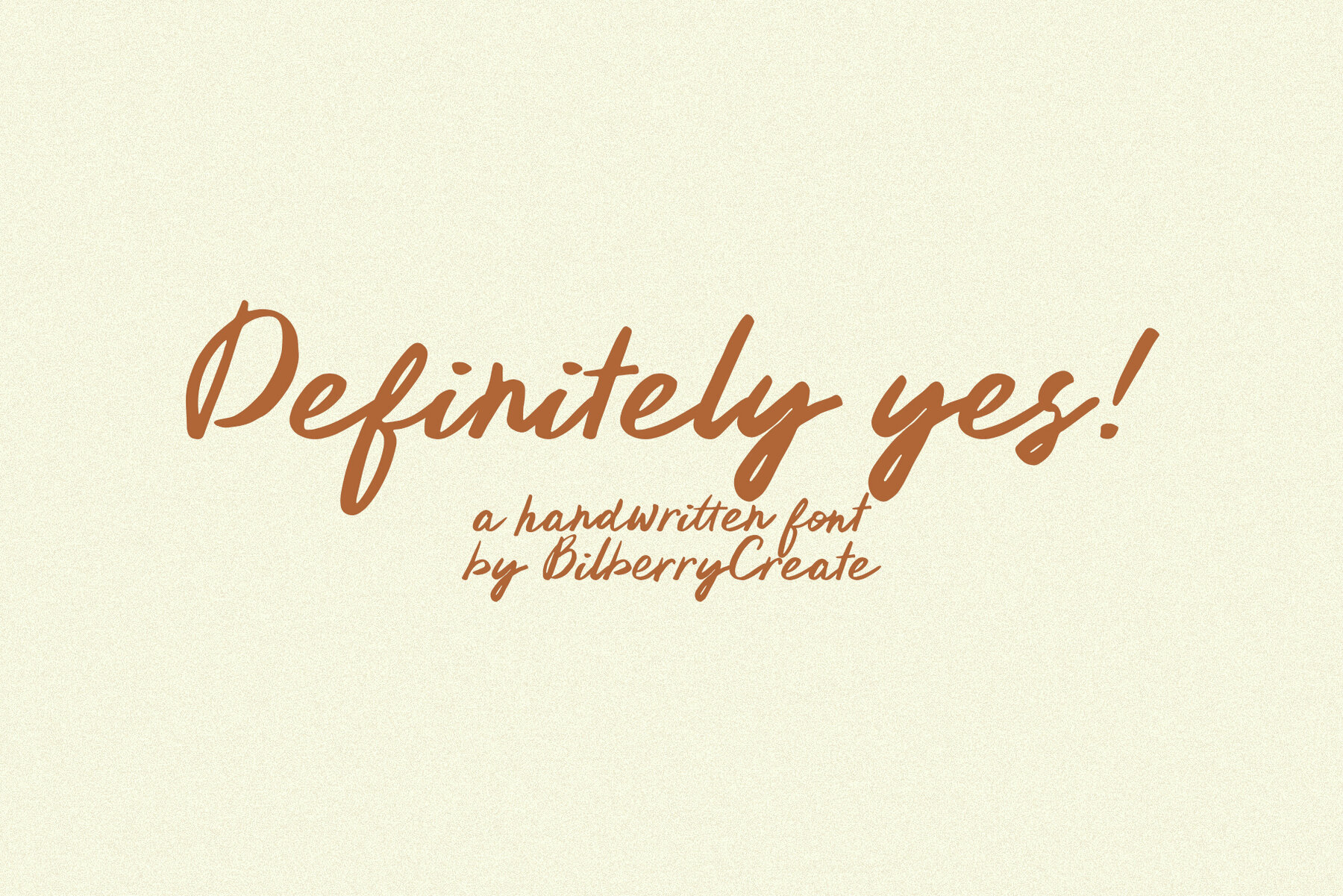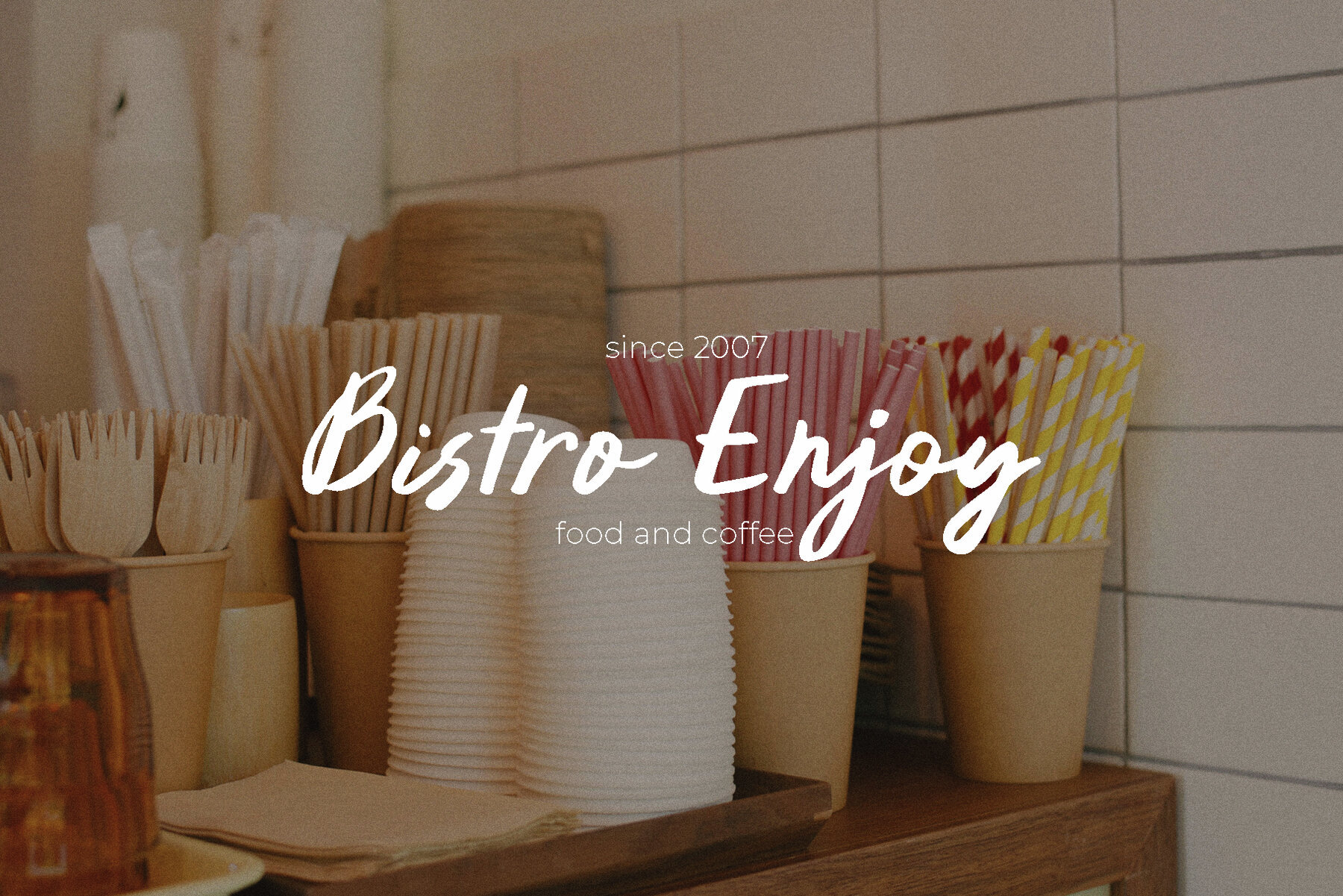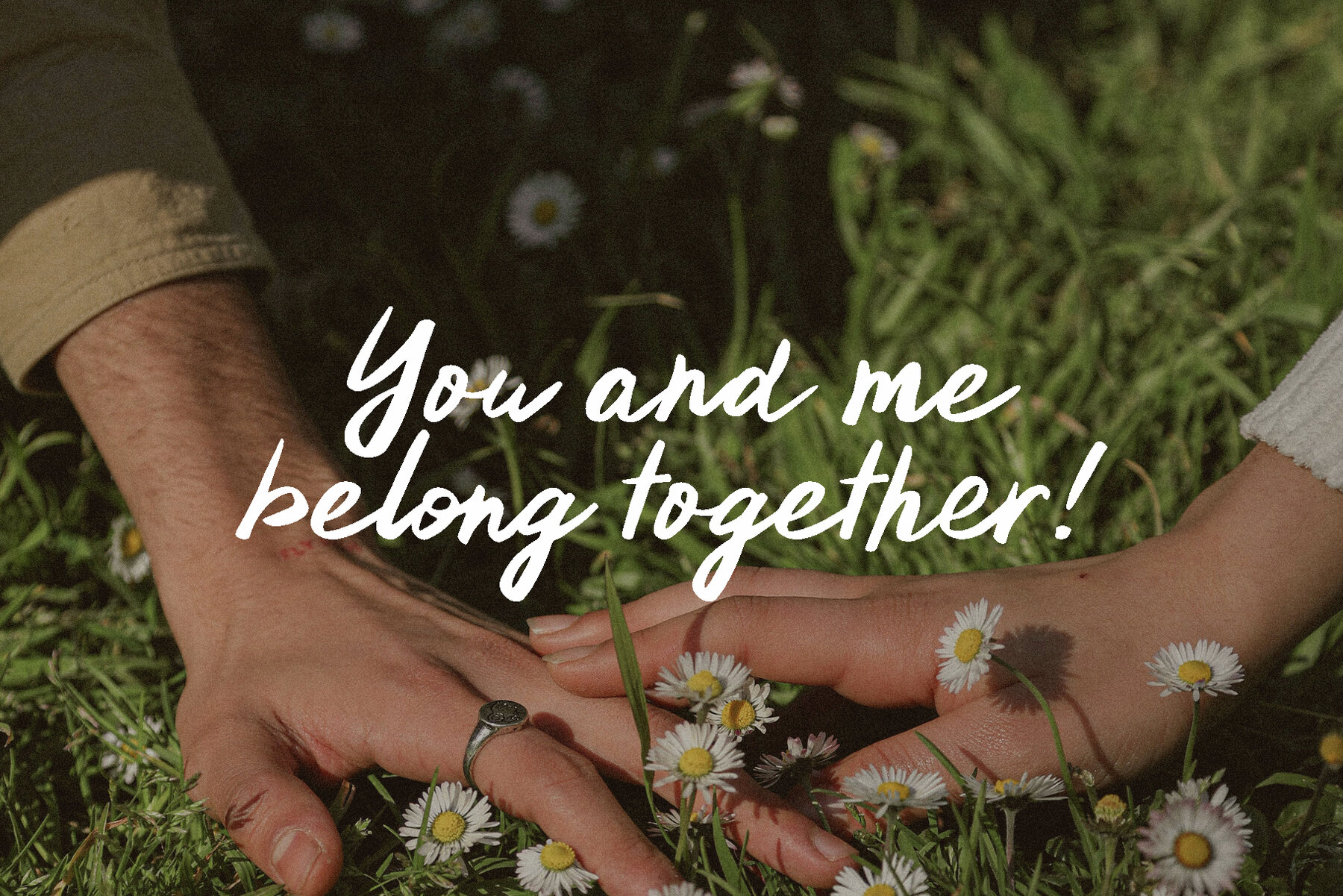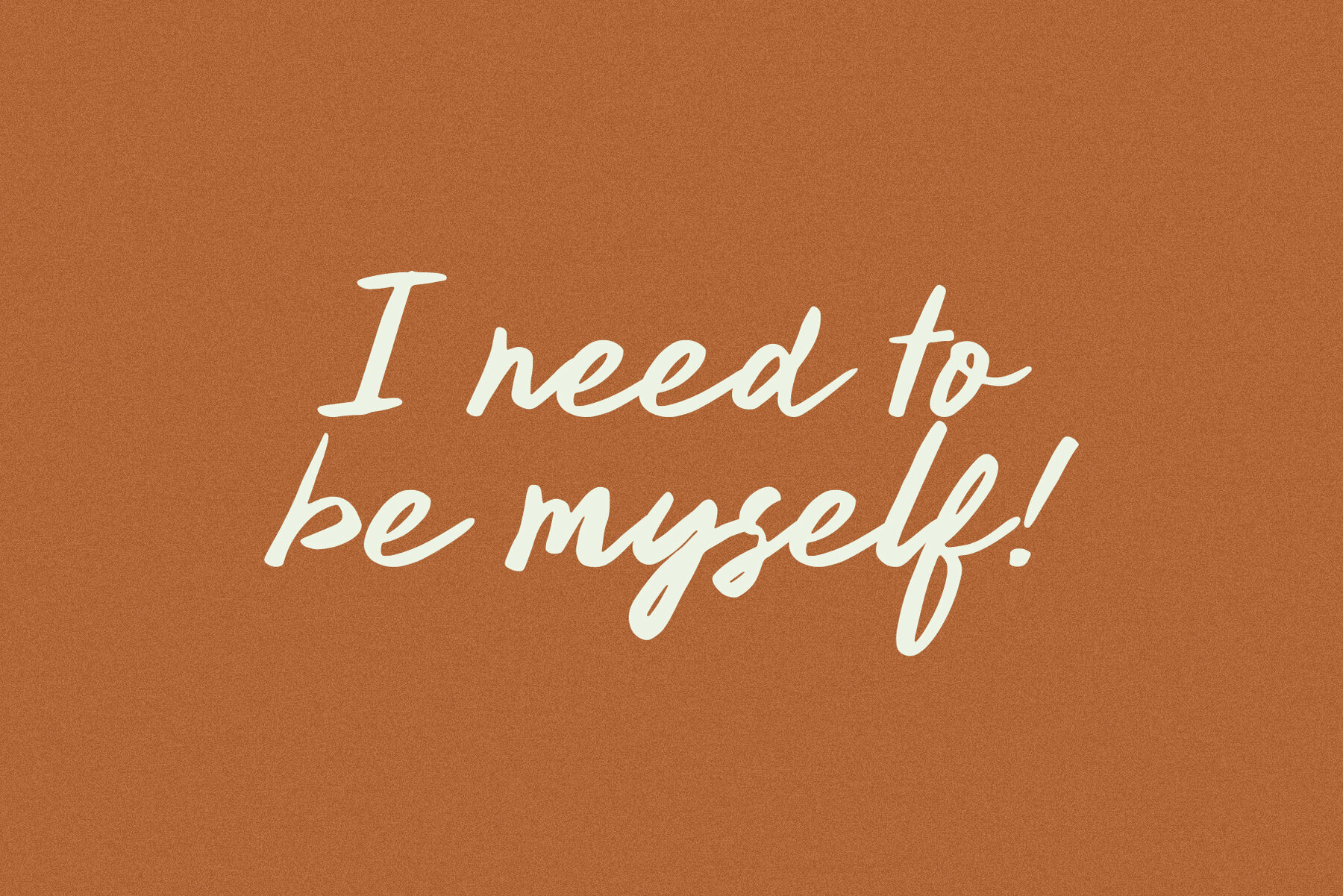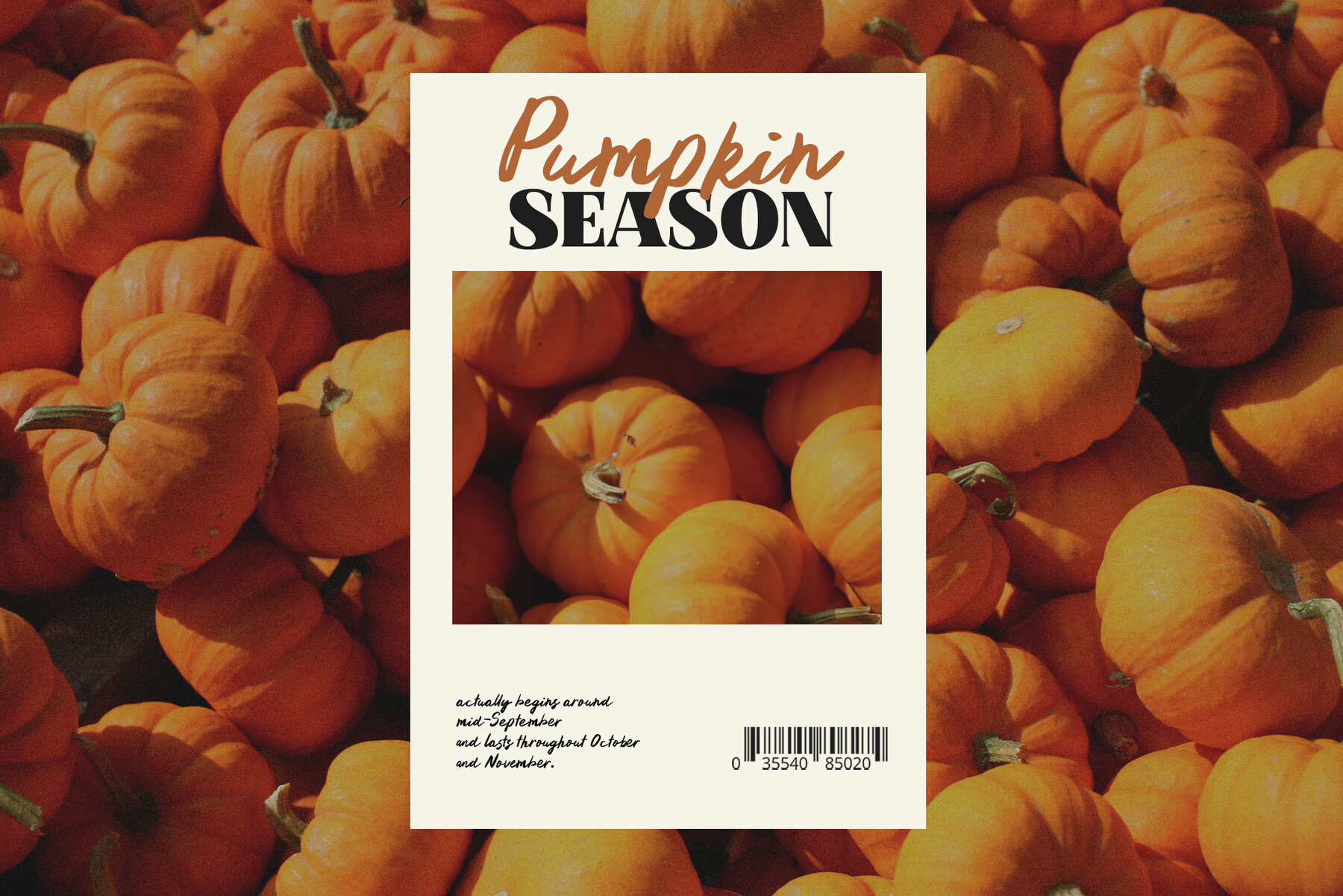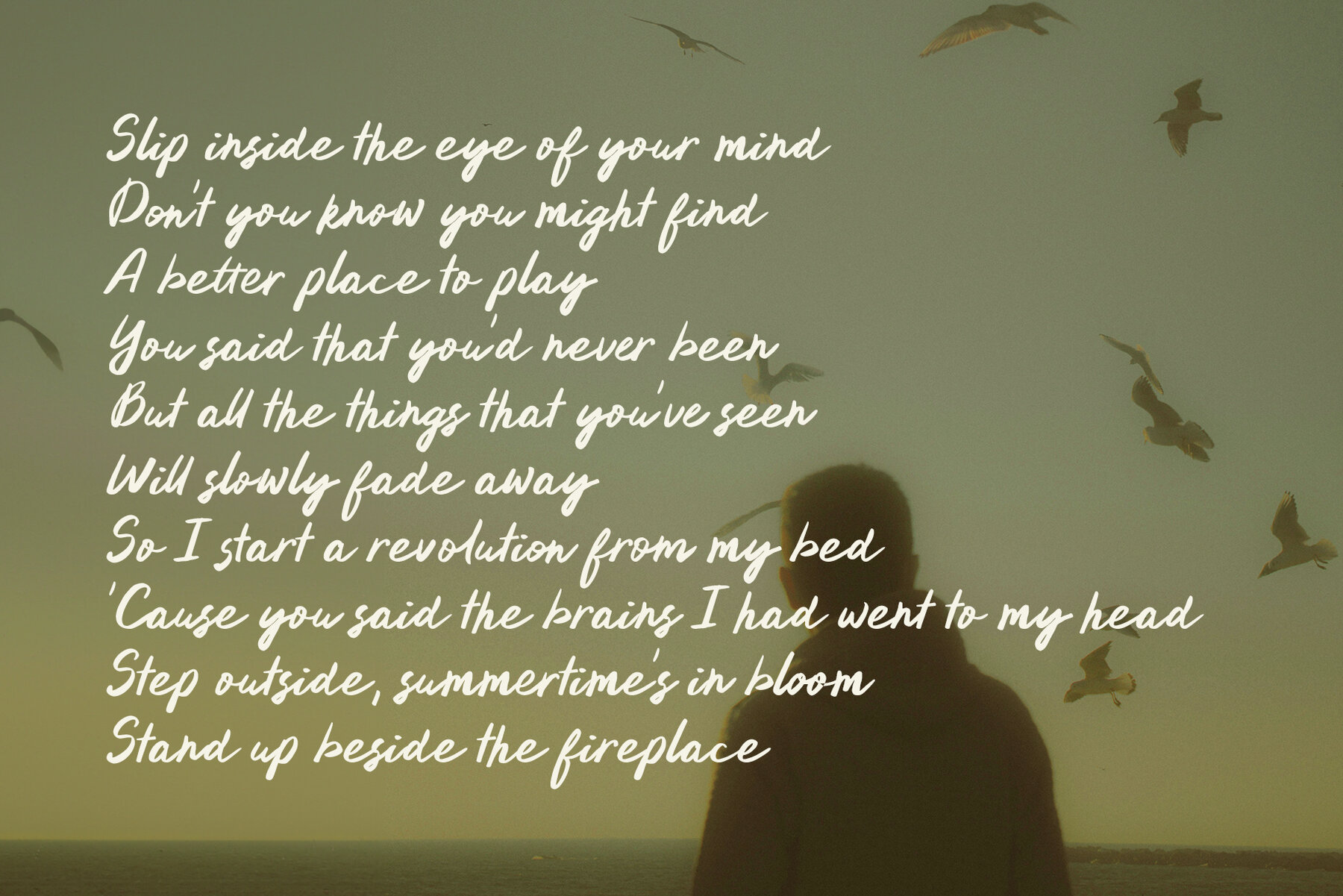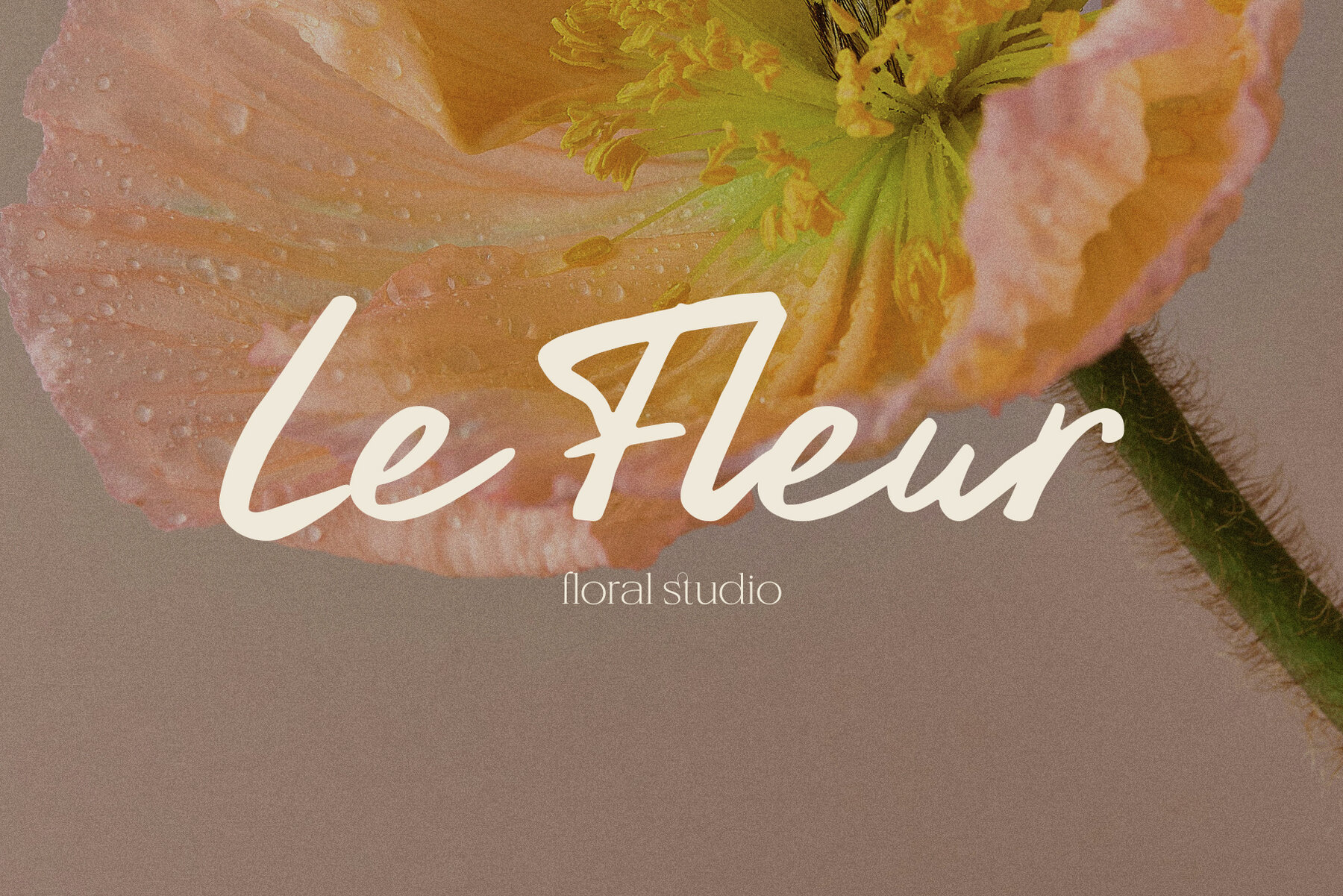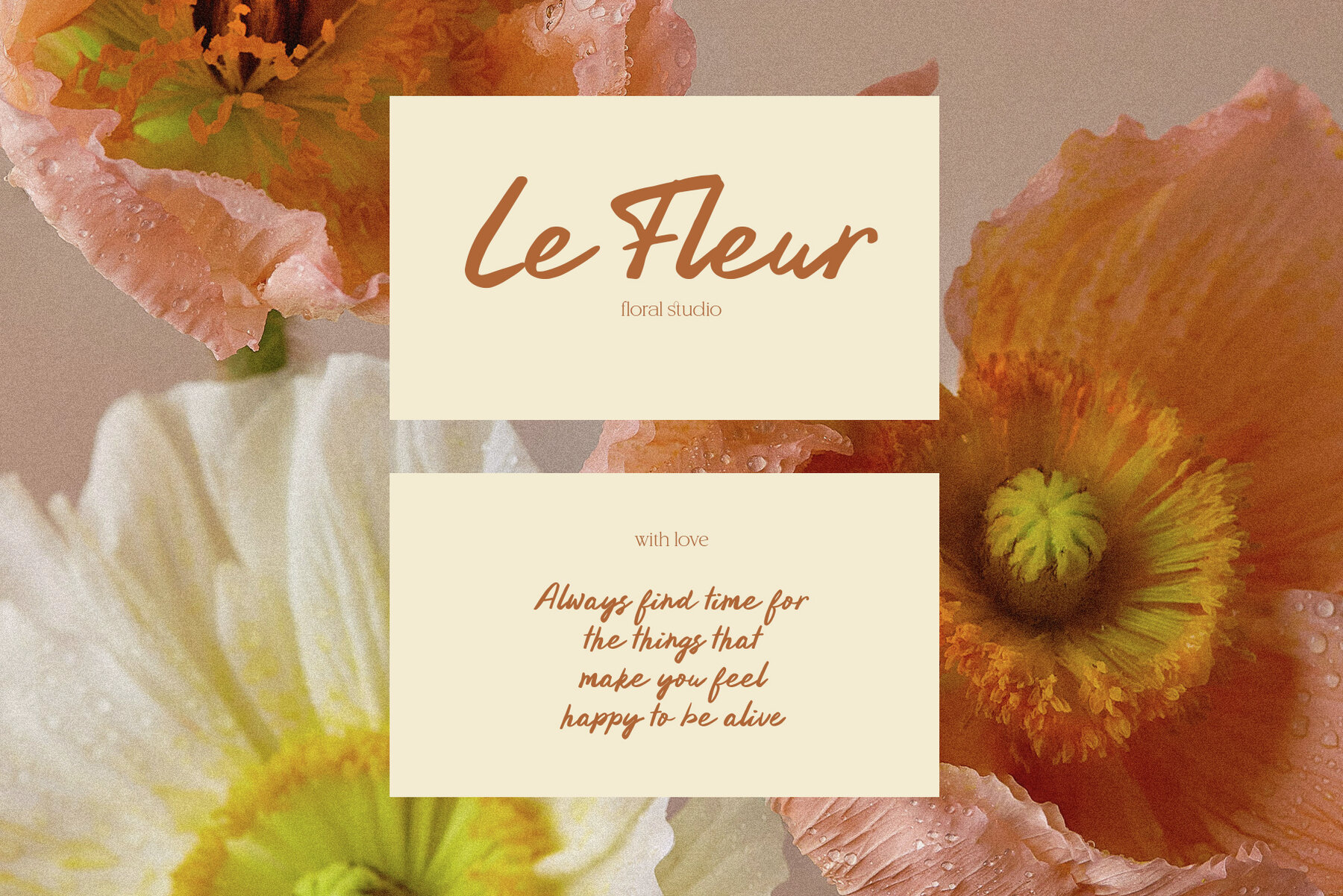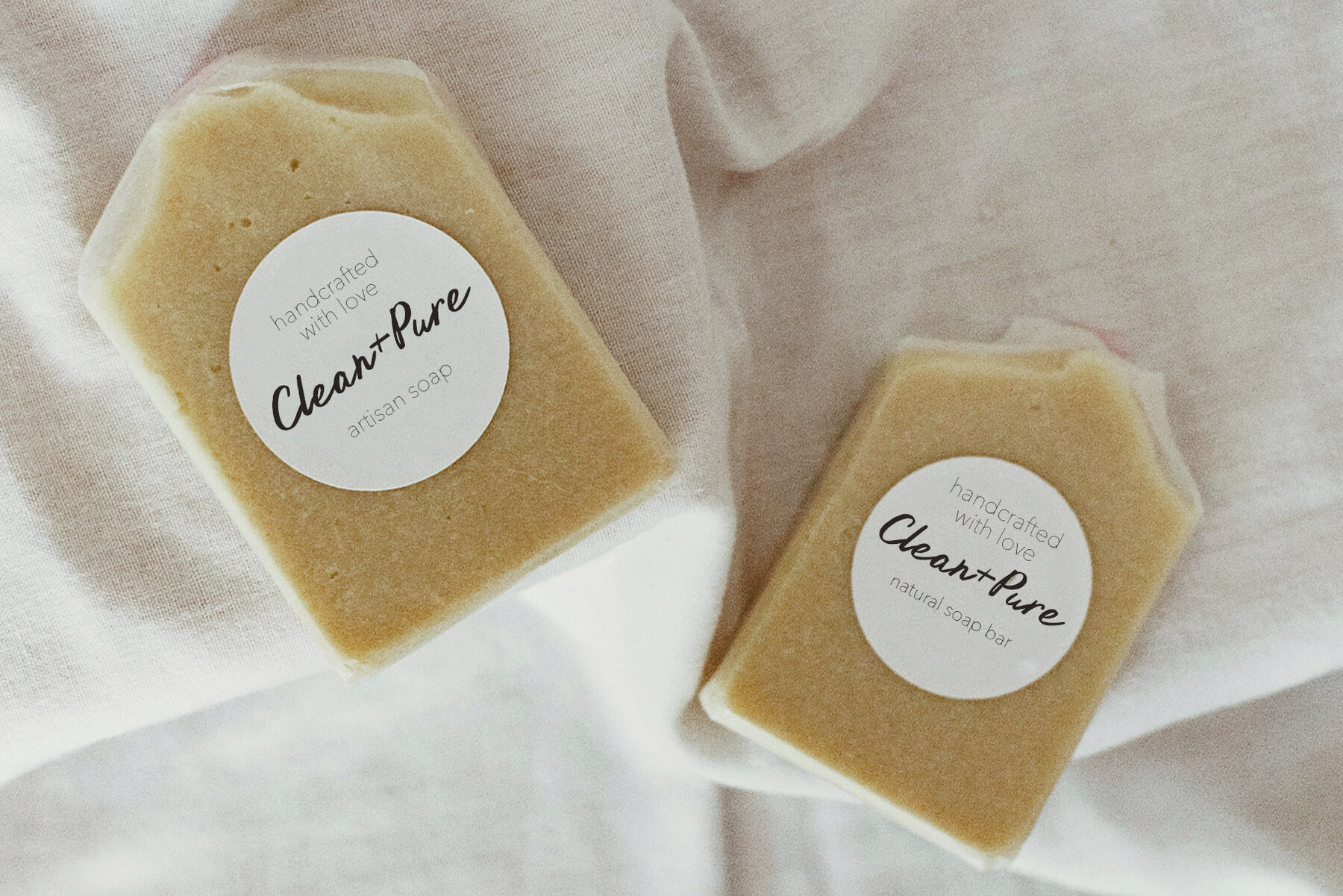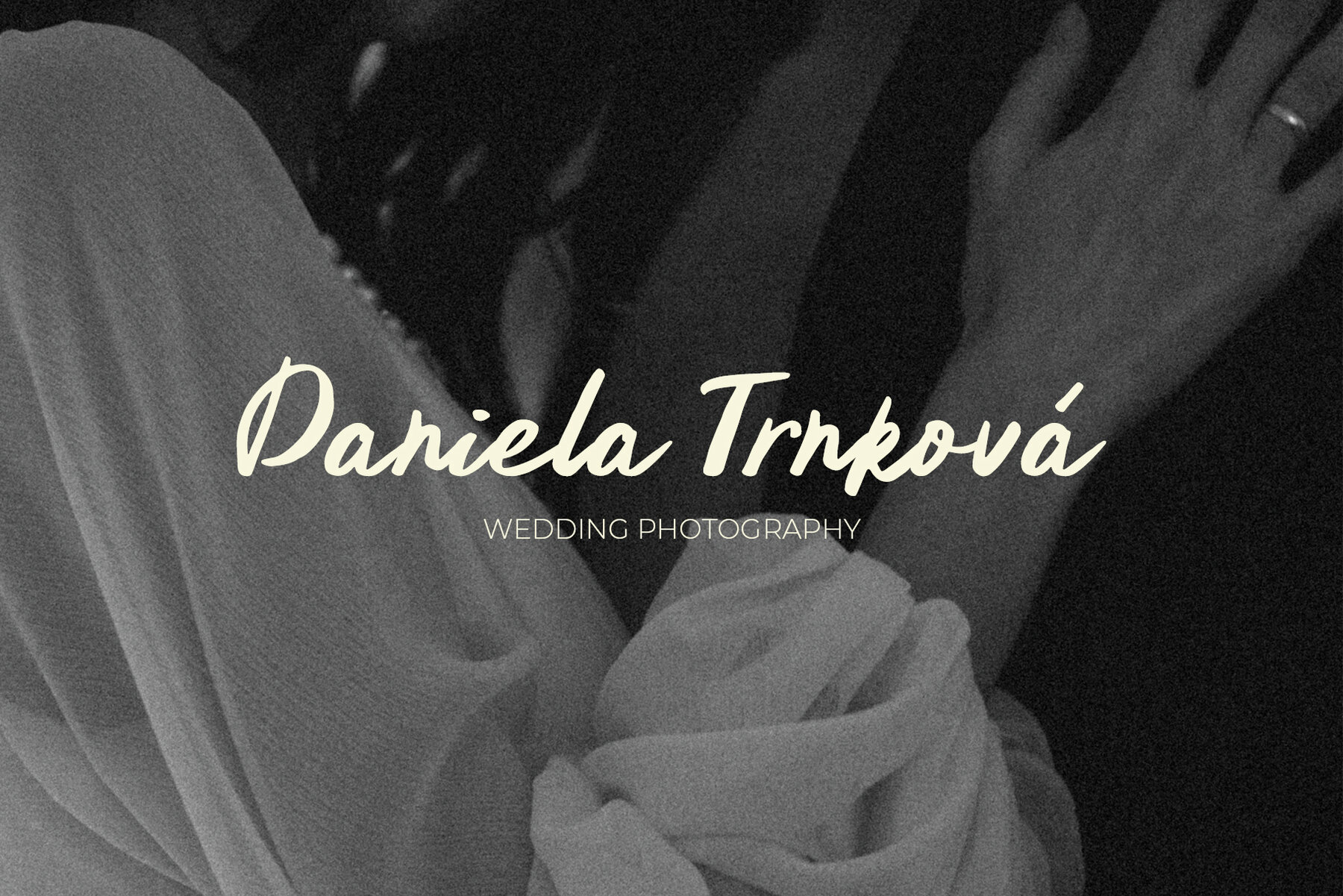
Definitely yes Font
Definitely yes Regular
Introducing a delightful handwritten font, perfect for adding a charming and personal touch to your creative projects. This font is ideal for a wide range of applications, including logos, invitation cards, wedding and birthday cards, home decor, and packaging. Whether you're crafting party decorations or designing prints on fabric, this font injects a unique flair into your work.
With its multilingual capabilities, this font ensures versatility across various languages, making it a valuable asset for global projects. Its authentic handwritten style brings warmth and individuality, allowing you to enhance your digital images and designs effortlessly. Explore its potential to transform your artistic visions into reality, all with a touch of handwritten elegance.